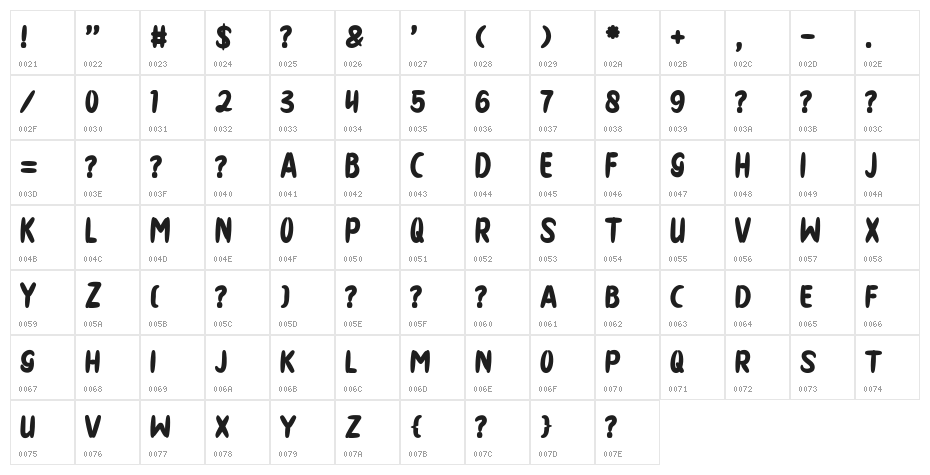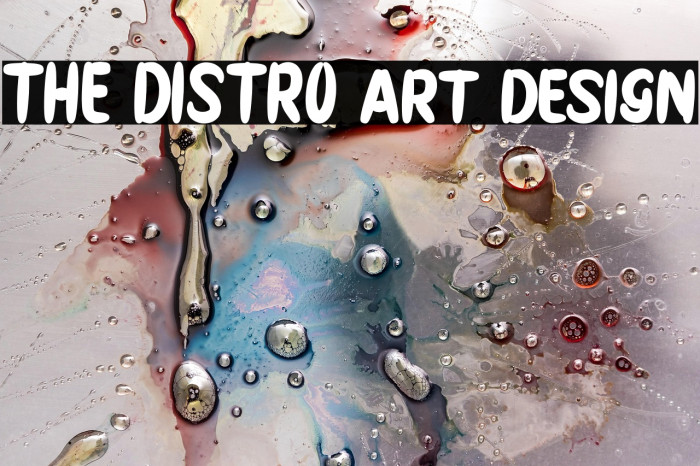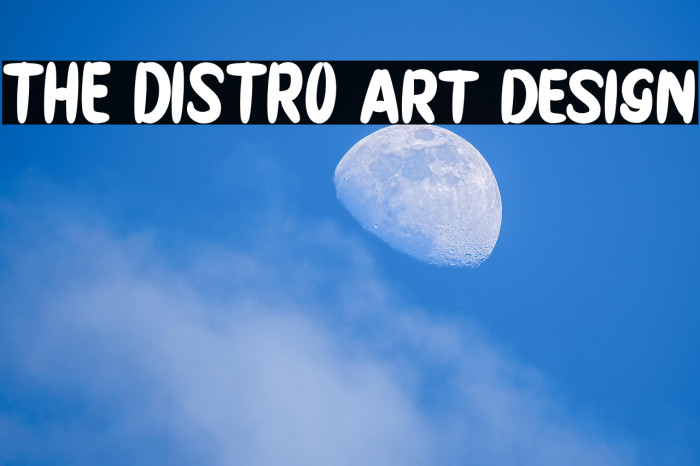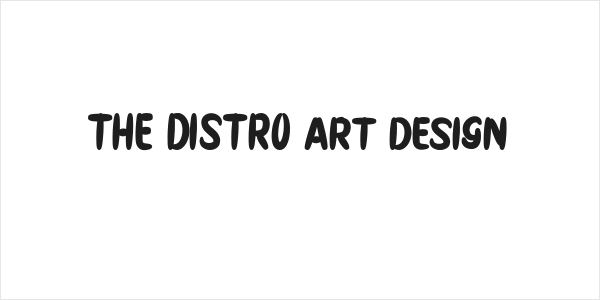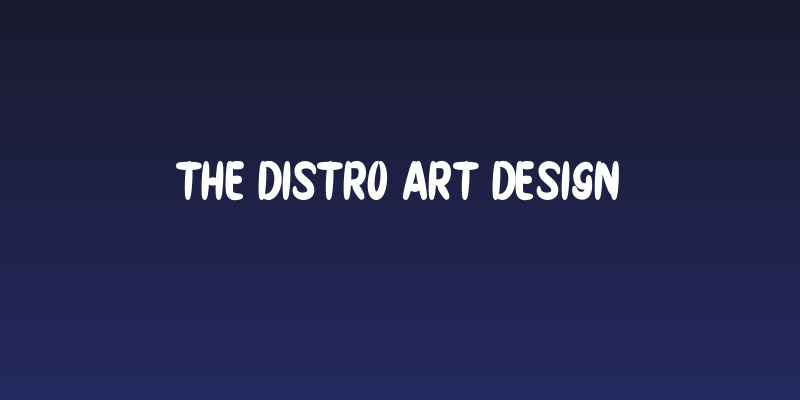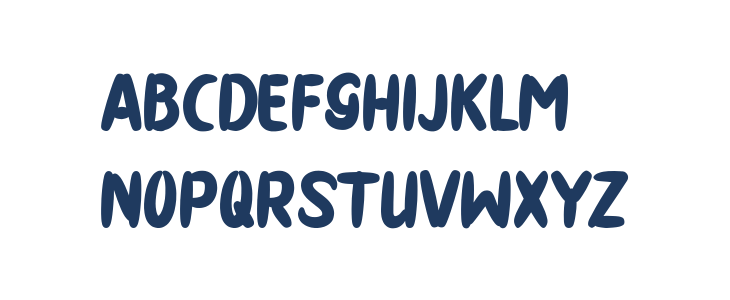
THE DISTRO art design Font
THE DISTRO art design Description
This font features a bold, handwritten style with a playful and energetic appearance. The characters are rounded and slightly irregular, giving them a casual and friendly feel. The uppercase and lowercase letters maintain a consistent weight, contributing to the font's cohesive look. The numbers and special characters are designed to match the overall style, ensuring versatility across different uses. The bold strokes and rounded edges make it highly legible, even at smaller sizes. This font is ideal for projects that require a personal touch or a fun, informal vibe.
Overall StyleCasual, Playful
Proposed ProjectsIdeal for greeting cards, children's books, posters, and branding that requires a personal, informal touch.